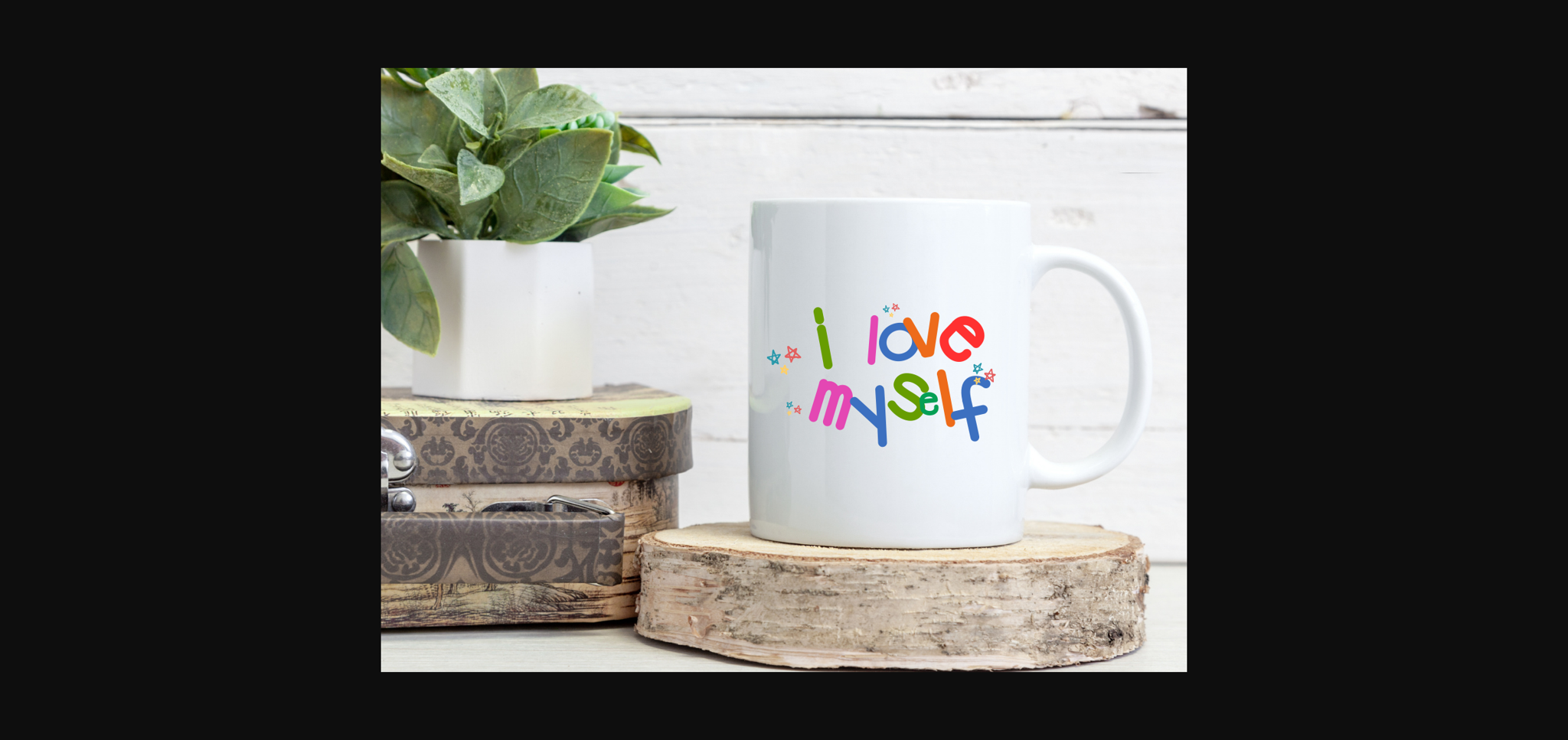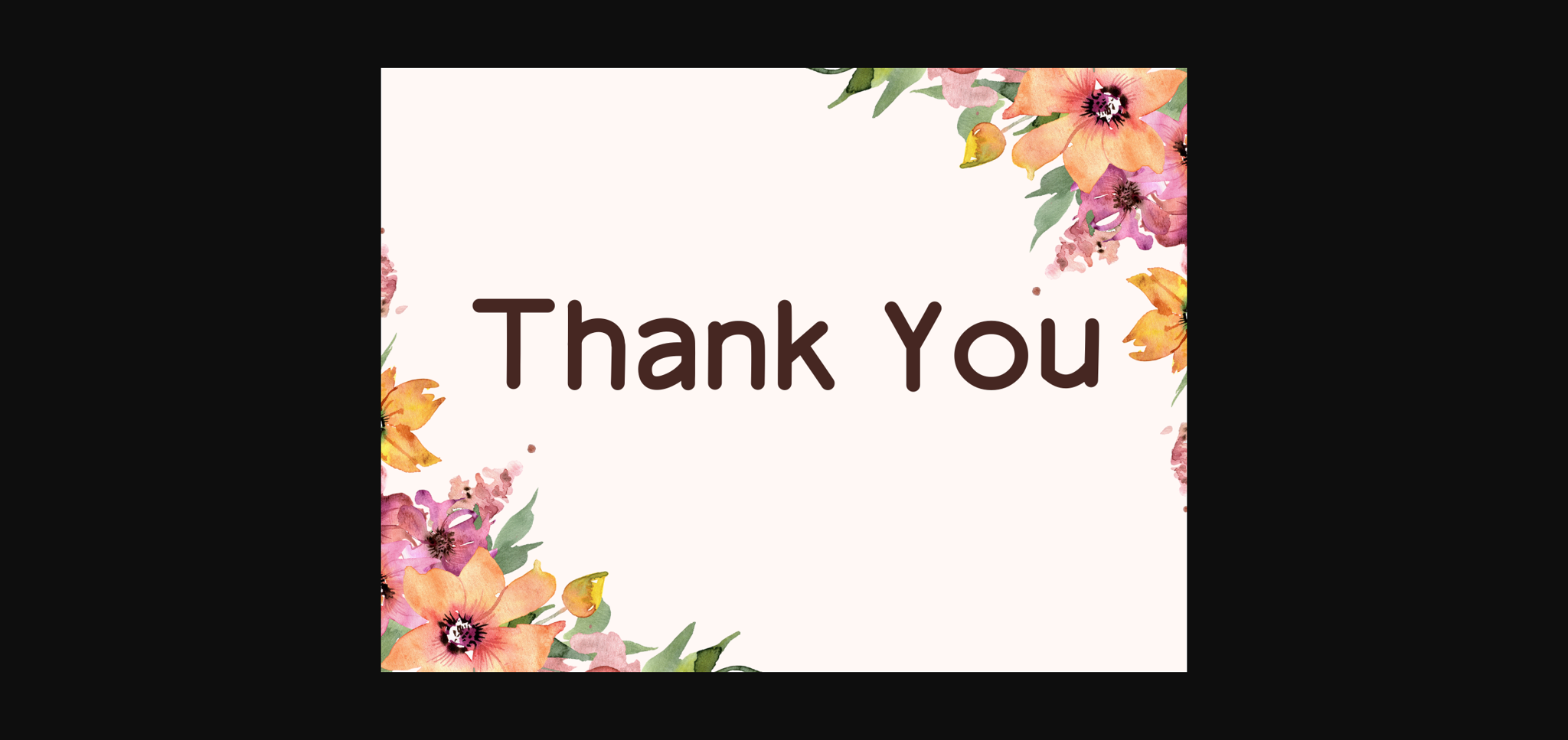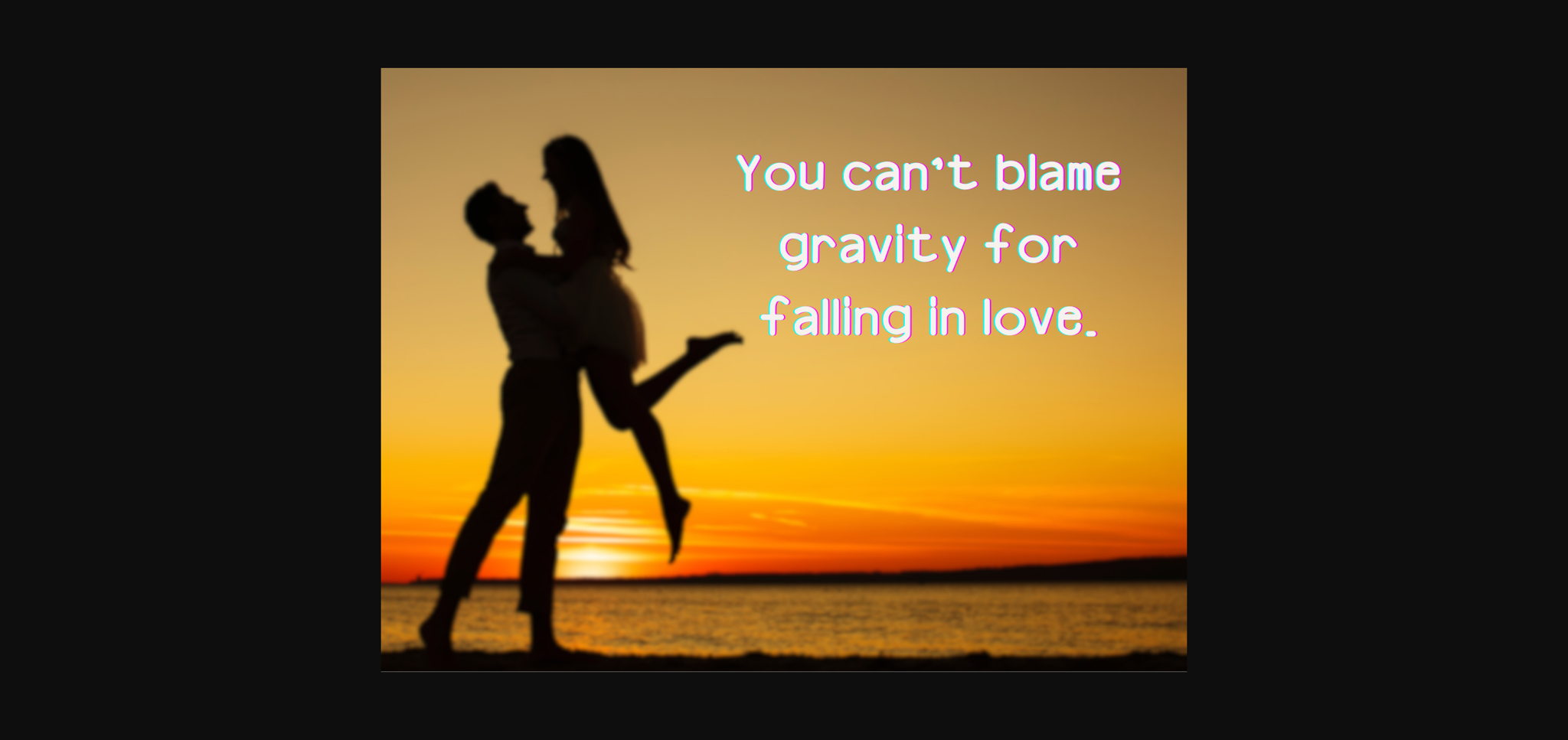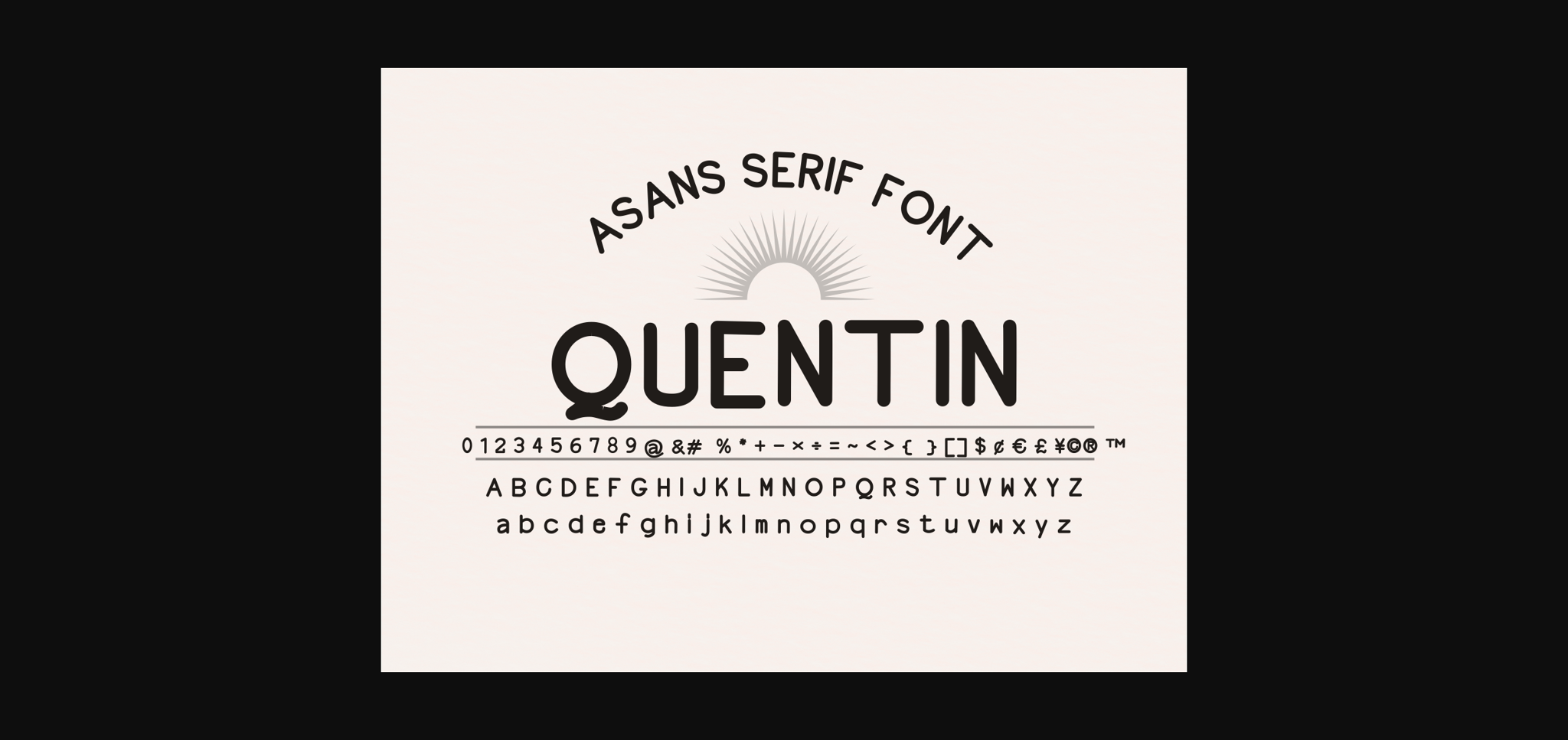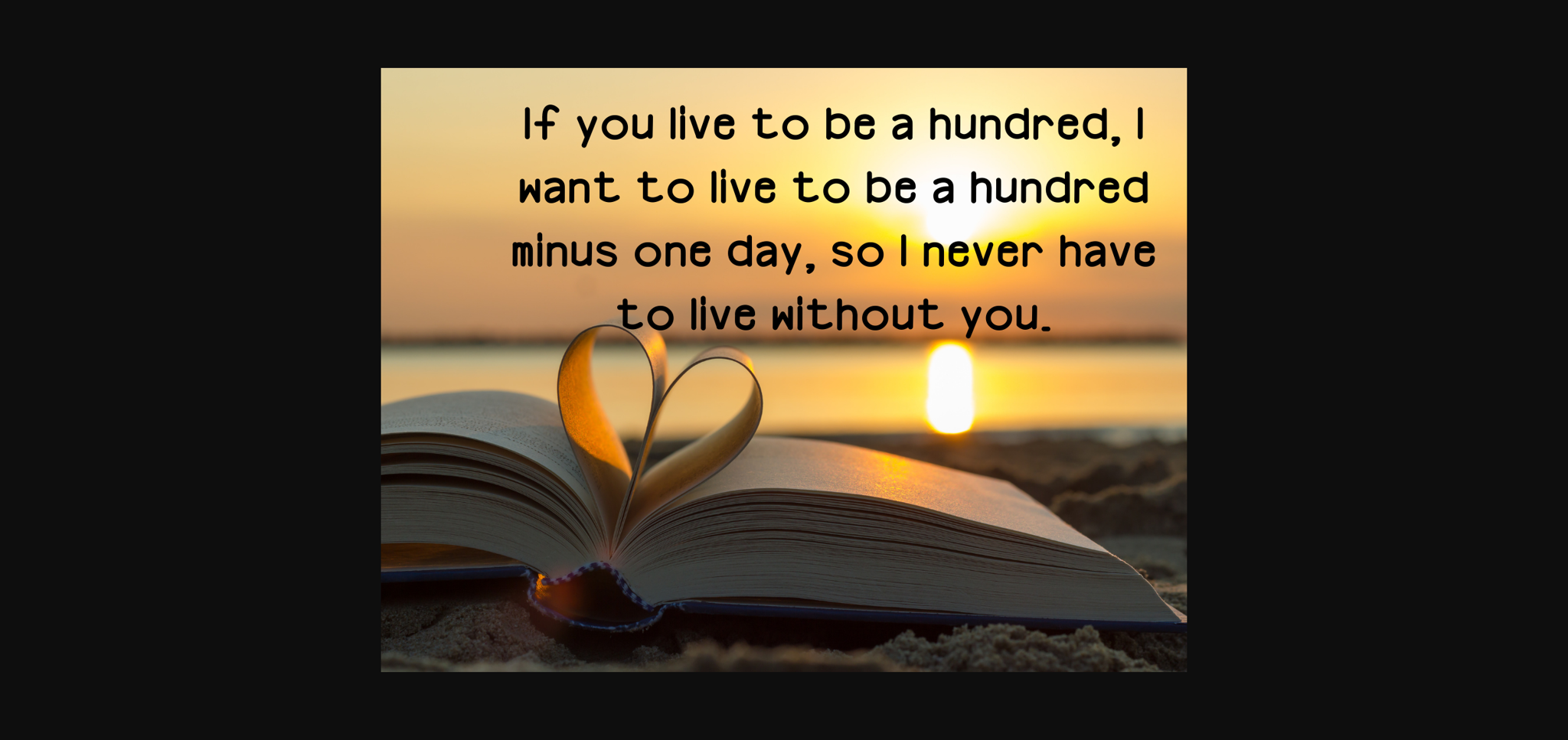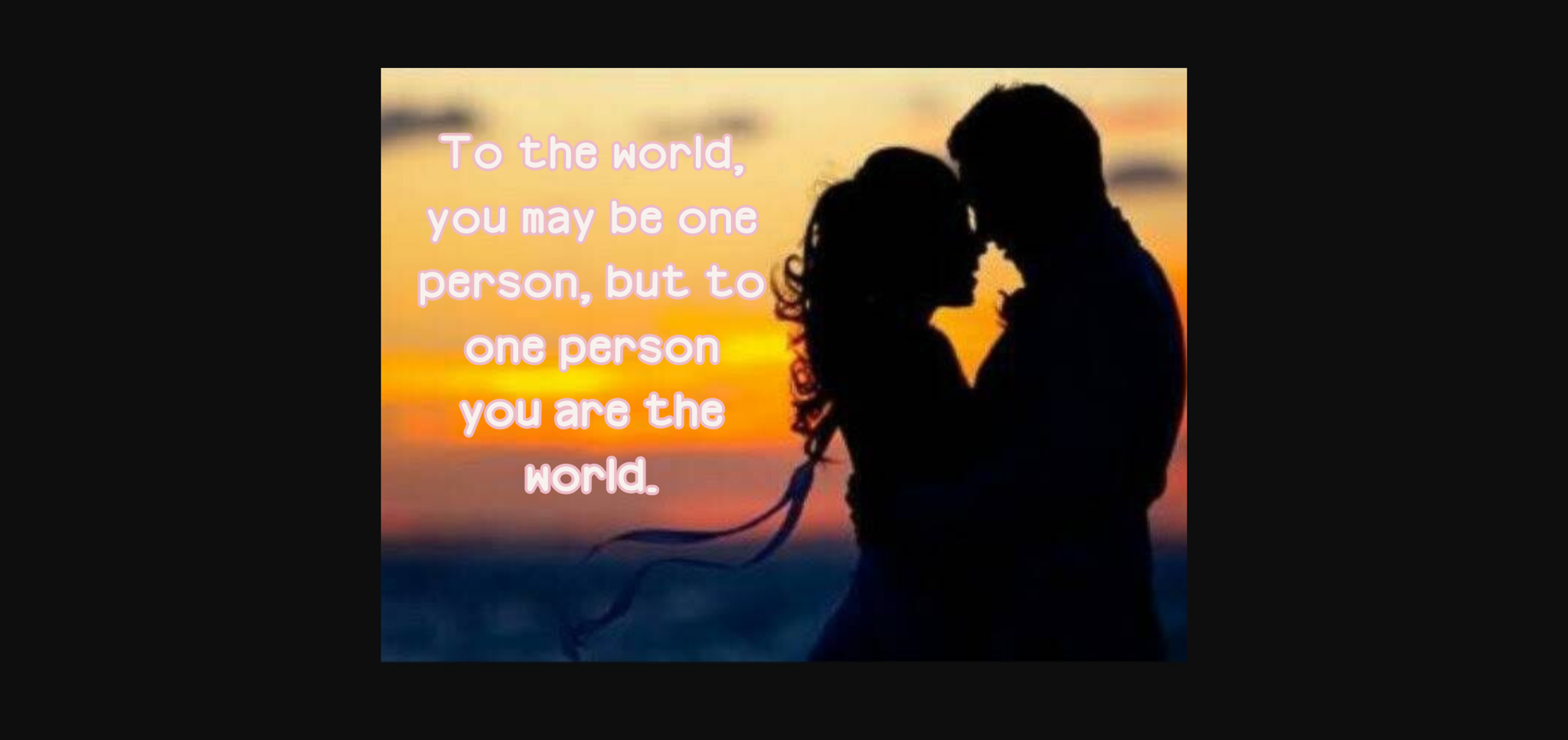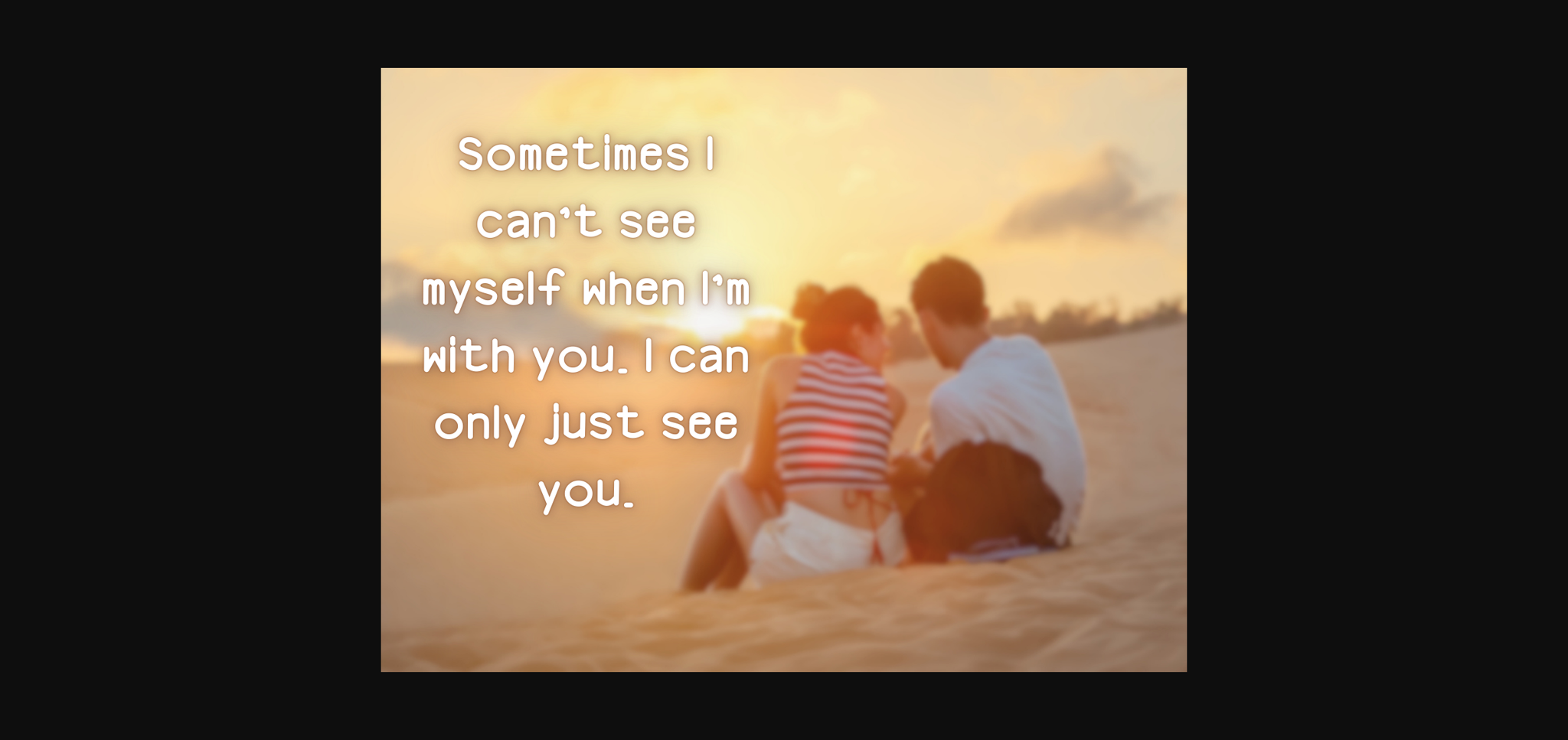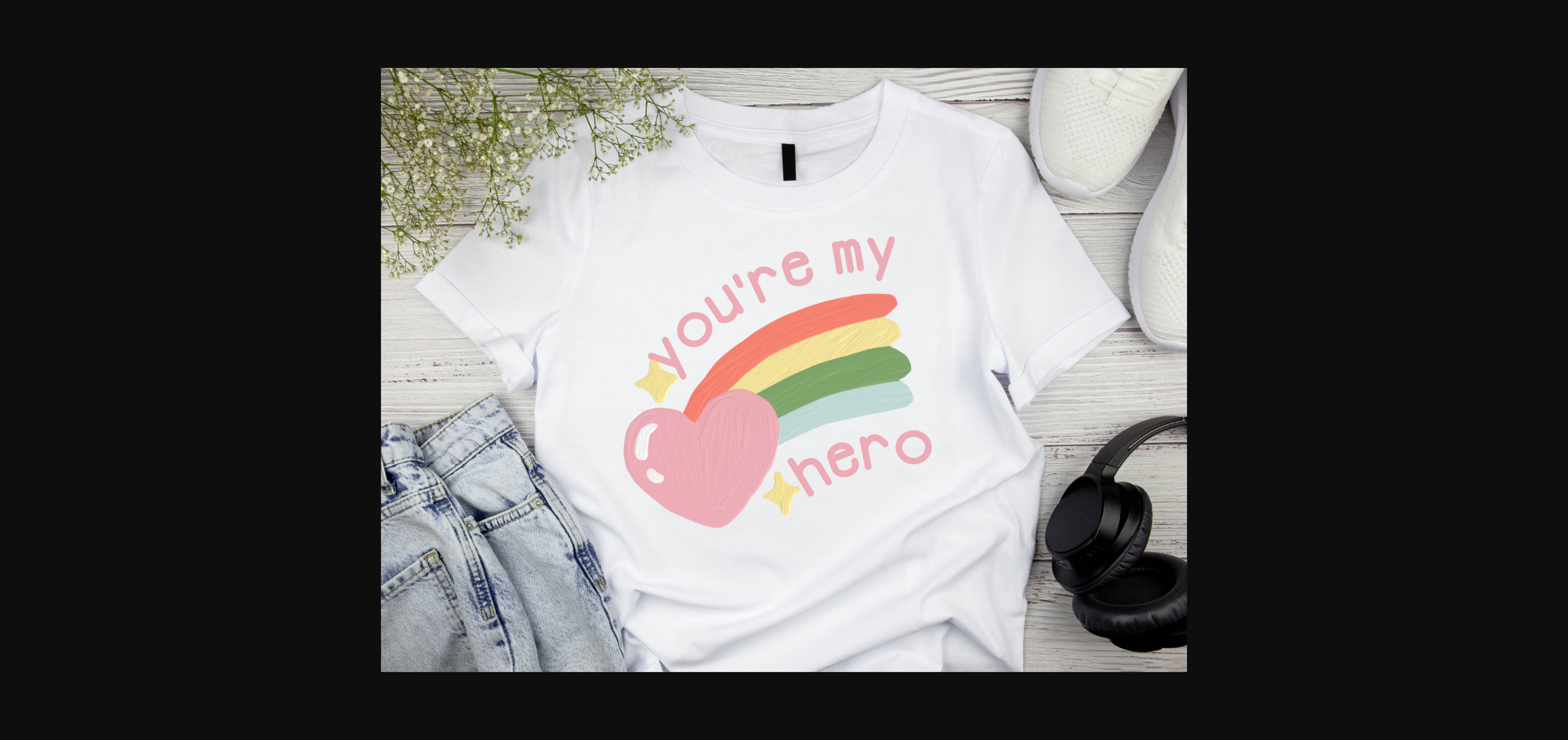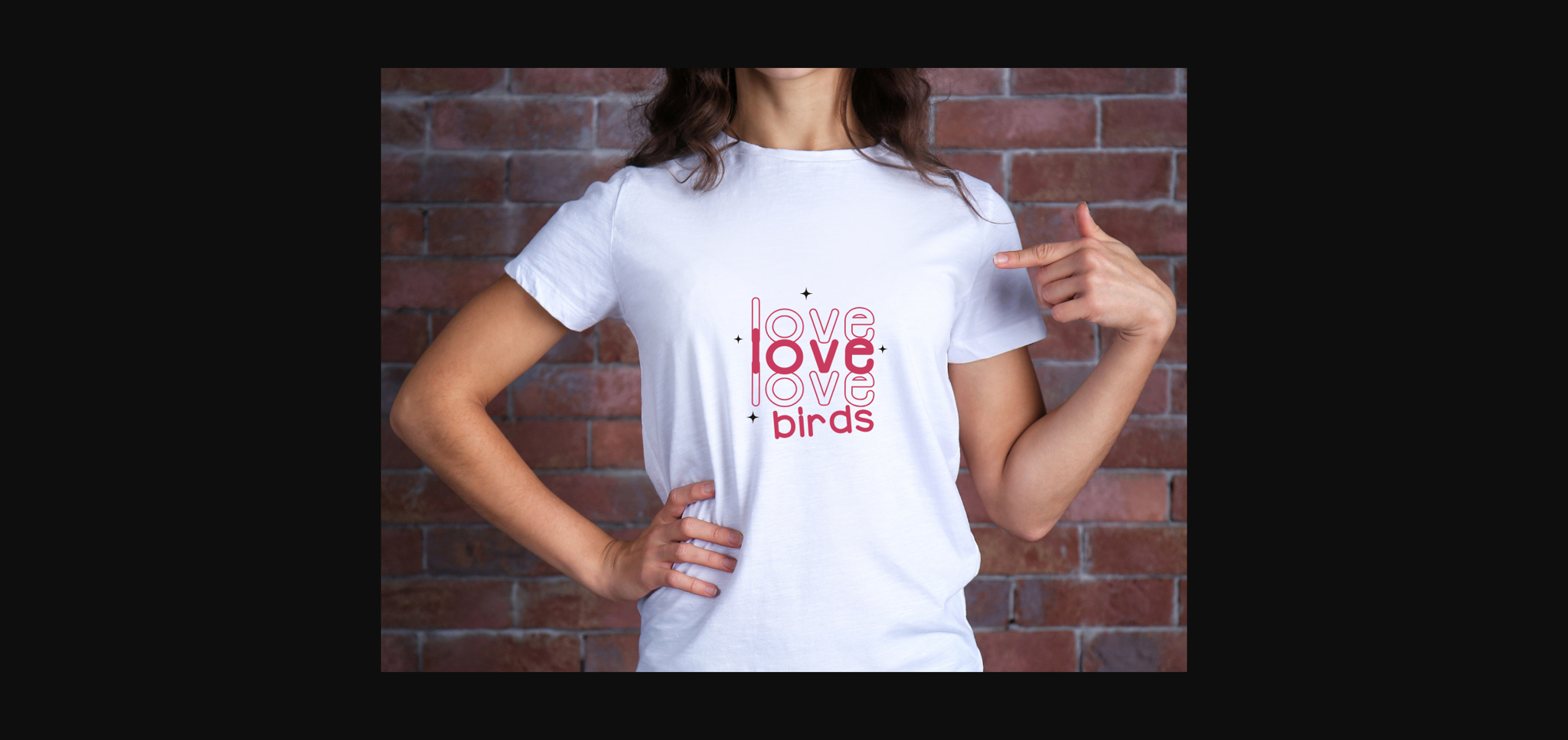
Quentin is a sweet and friendly sans serif font. Its natural and unique style makes it incredibly fitting to a large pool of designs. The only limit is your imagination!